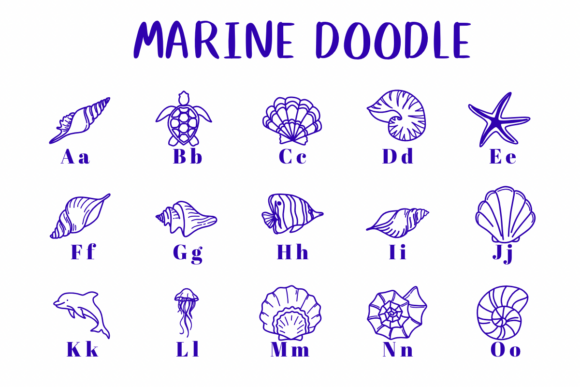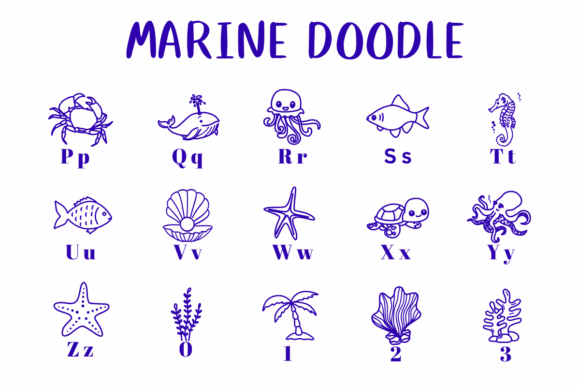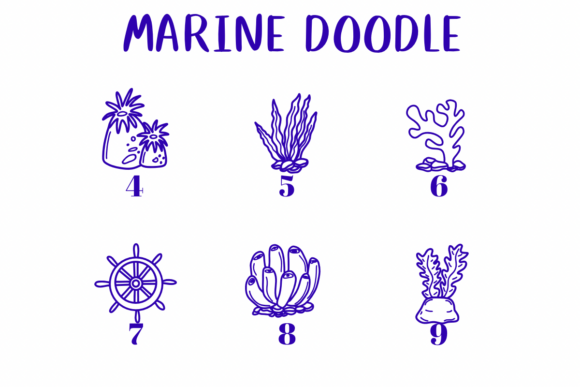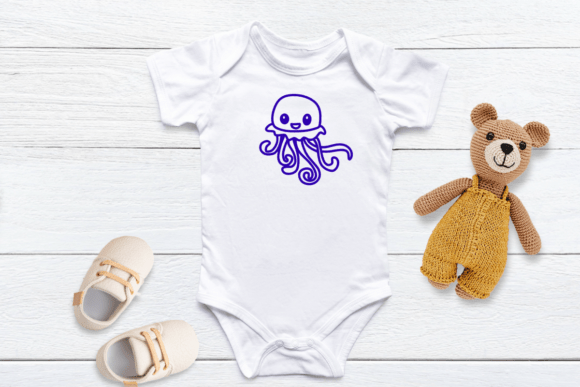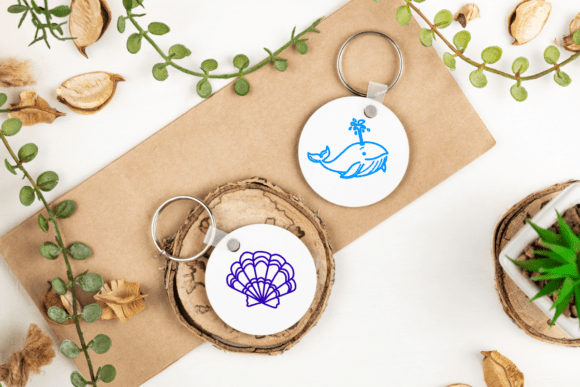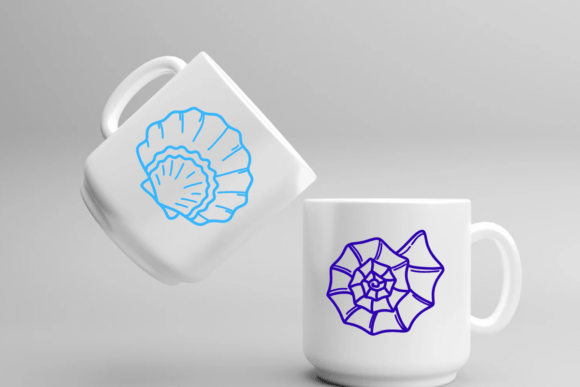
Introduction to Marine Doodle Font
Imagine you’re on a beach, surrounded by the soothing sounds of the ocean and the warm sun on your skin. As you gaze out at the waves, you get a spark of inspiration for your next creative project. You envision a beautiful wedding invitation, adorned with intricate seaweed patterns and playful fish illustrations. This is exactly the kind of creative moment that the Marine Doodle Font is designed to capture.
This unique dingbats font features an aquatic theme that’s perfect for adding a touch of whimsy to your designs. With its high quality illustrations and transparent background, it’s a valuable resource for designers looking to elevate their creative projects. Whether you’re working on DIY crafts, decorations, or logos, the Marine Doodle Font is sure to inspire your next masterpiece.
Key Features of Marine Doodle Font
- High-quality design with a unique, hand-drawn style perfect for creative projects
- Transparent background, allowing for easy integration into various design elements
- Perfect for designers looking for a fun and playful font to add a touch of whimsy to their creative project
Honest Review: Marine Doodle Font
As a designer, I’m always on the lookout for unique and high-quality fonts that can elevate my creative projects. The Marine Doodle Font is one such resource that caught my attention.
Here’s what works well: ✨ The font’s playful, hand-drawn style makes it perfect for projects that require a touch of whimsy and personality. The transparent background also allows for easy layering and customization. The free download is an added bonus, making it an excellent design resource for both professionals and hobbyists.
Some potential limitations: ⚠️ While the font is versatile, it may not be suitable for projects that require a more formal or traditional tone. Additionally, the font’s size and spacing can be a bit inconsistent at times, which may require some adjustments in your design software.
Overall, I’m impressed with the Marine Doodle Font’s potential and versatility. It’s a great addition to any designer’s toolkit, and I’d definitely recommend it for creative projects that require a unique and playful touch.
- High-quality, hand-drawn design
- Suitable for creative projects, such as children’s books, party invitations, and more
The Marine Doodle Font is a high-quality, free download that can be used for a variety of creative projects. With its unique, hand-drawn style and transparent background, this font is perfect for adding a touch of whimsy to your designs.
Tips for Getting the Most Out of Marine Doodle Font
For best results, use the Marine Doodle Font in conjunction with other design elements that complement its playful style. Experiment with different font sizes, colors, and arrangements to create a unique look that suits your design needs.
The Marine Doodle Font is perfect for a variety of creative projects, including invitations, posters, social media graphics, and more. Its unique style and transparent background make it a versatile design resource that can be used in a range of contexts.